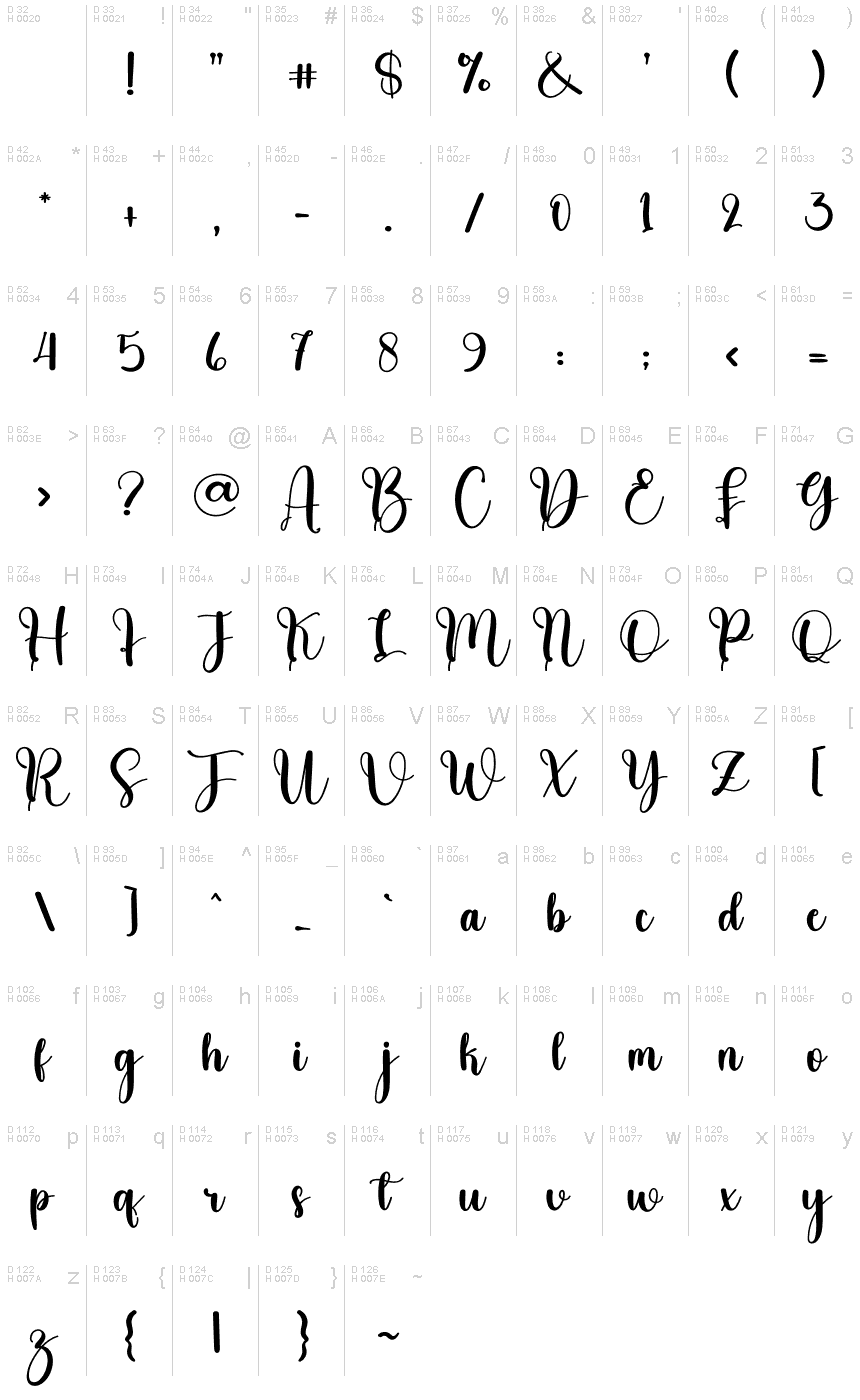
Molecule
Molecule, a calligraphy font designed by FreshtypeINK, offers a special and unforgettable experience with its extraordinary strokes. This popular and professional script font exudes modernity and elegance, making it suitable for both formal and informal projects.
Whether you're designing invitation cards, letterheads, website logos, or social media posts, Molecule adds a touch of creativity to any creative endeavor. Its versatility extends to banners, advertisements, brochures, packaging products, leather goods – basically anything that requires written communication. With Molecule's luxurious and attractive style, your products are guaranteed to stand out from the crowd.
Featuring a complete set of upper and lowercase letters along with numbers, punctuation marks, and ligatures – this font provides everything you need for a realistic and visually appealing design.